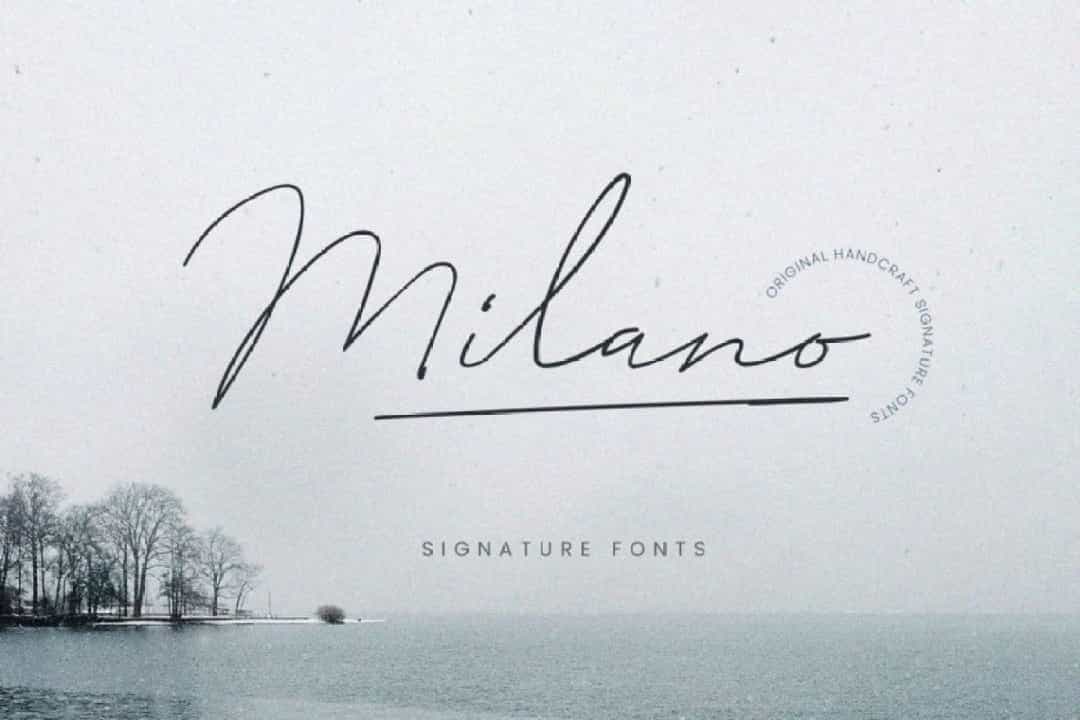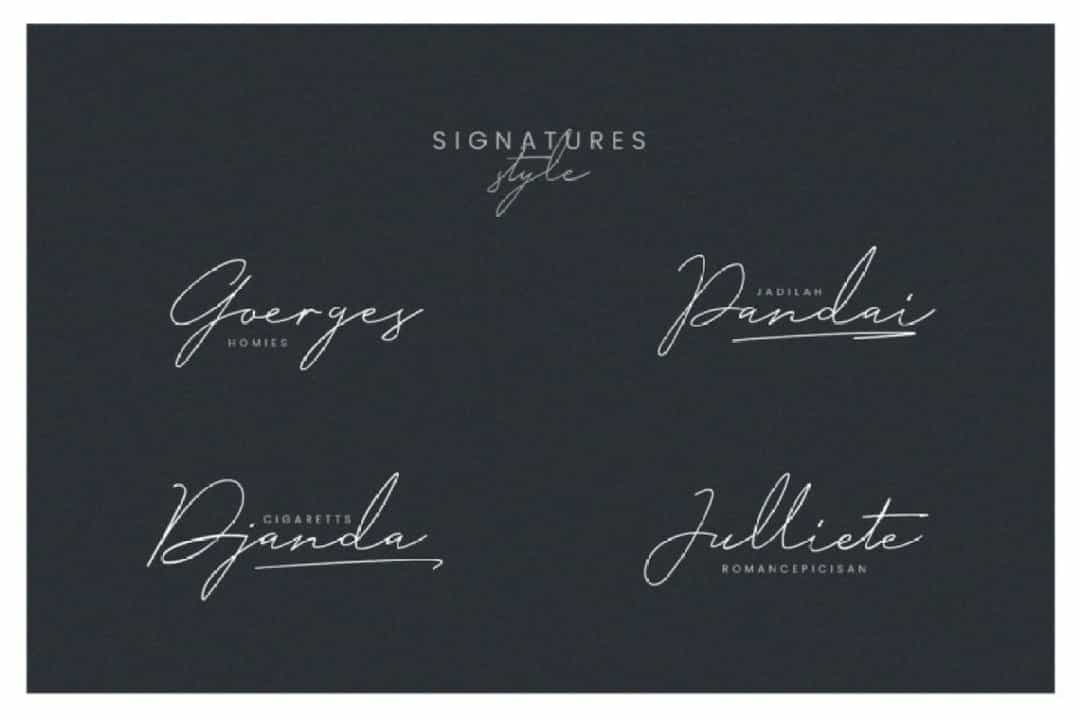
Discover Milano Signature Script Font, part of the Handwritten Script collection—a versatile and unique font perfect for adding a personal touch to your projects. Download it for free and enjoy crafting designs with style, from invitations to social media posts. This font is available exclusively for personal use, giving you the freedom to create without limits. Unlock your creativity with Milano Signature Script Font today!
Milano is a thin and quite simple font that is suitable for headlines and logos as well as for formal documents and invitations, labels, books, magazines, and packaging of wedding or greeting cards, cosmetic products, and labels, and various advertisements.